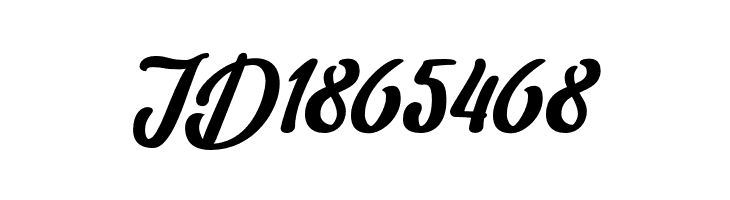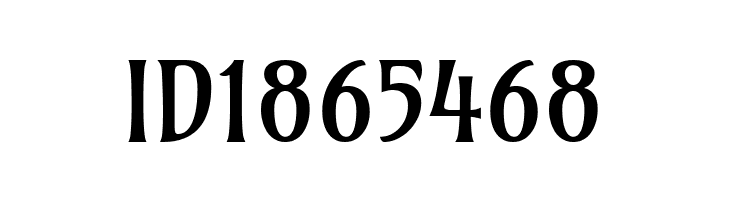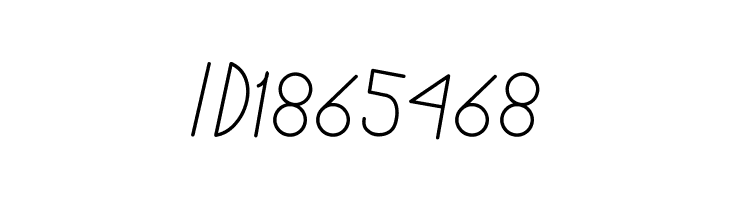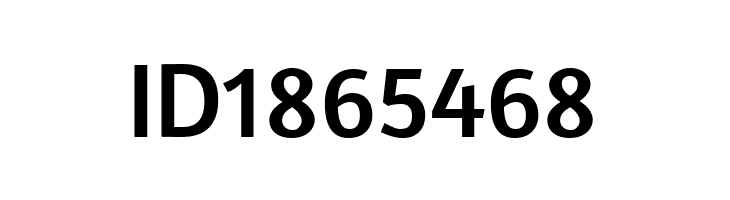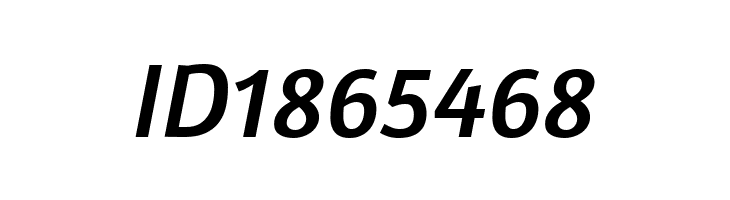
A playful, handwritten font with elongated, narrow characters and a slight slant.
A playful and decorative font with unique curves and a whimsical style.
A modern sans-serif font with a clean and geometric style.
A bold, modern sans-serif font with a friendly and approachable style.
A bold and italic font with a modern, dynamic style.
A modern, italic font with clean lines and a professional appearance.
A modern, clean sans-serif font with rounded edges and excellent legibility.
A bold, elegant script font with flowing curves and intricate loops.